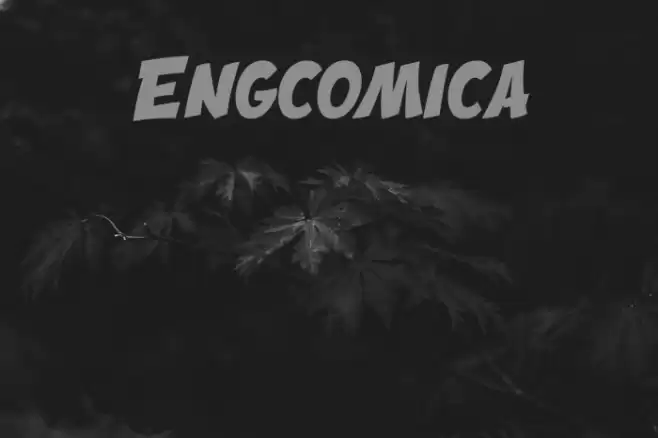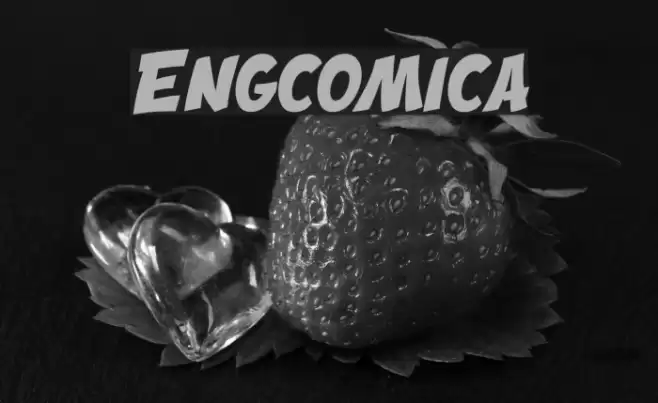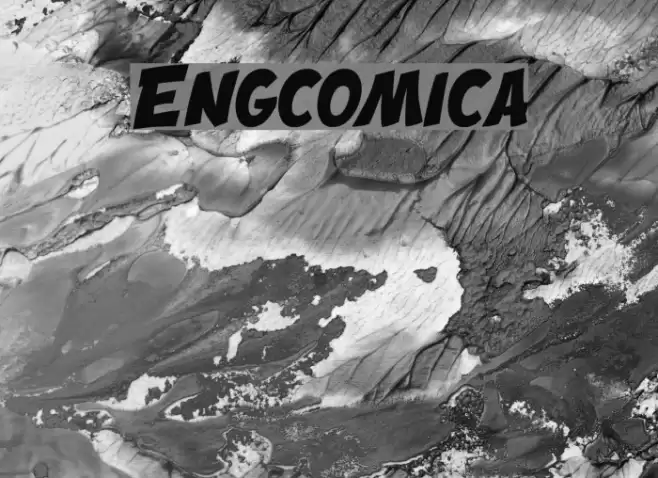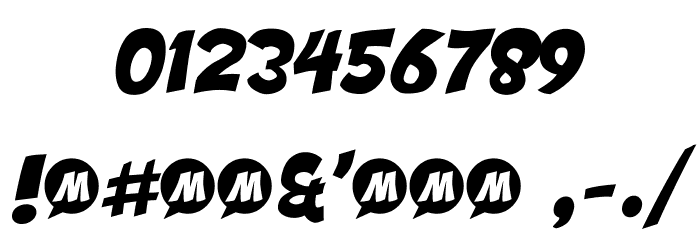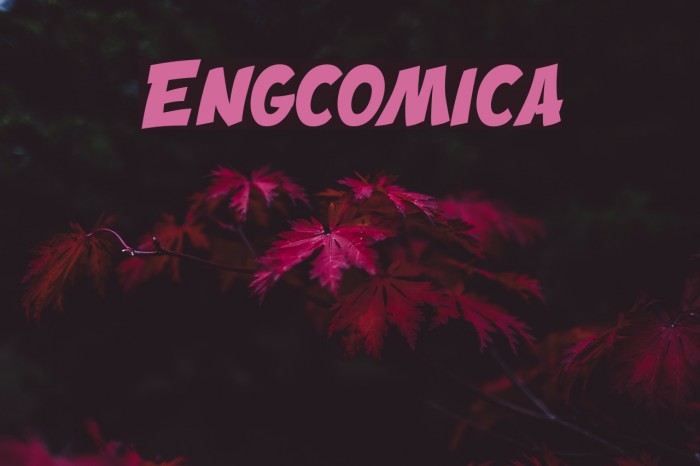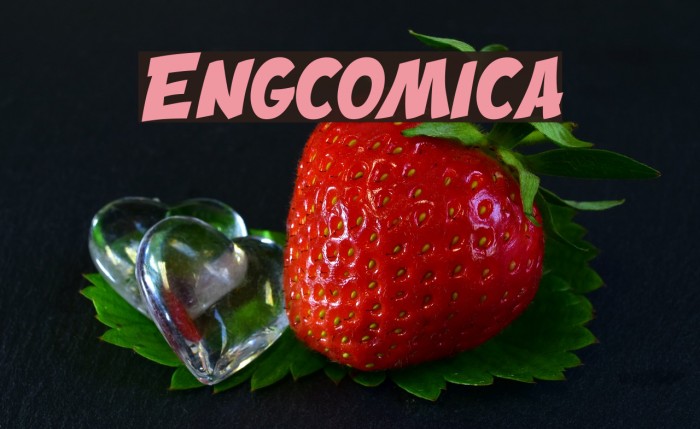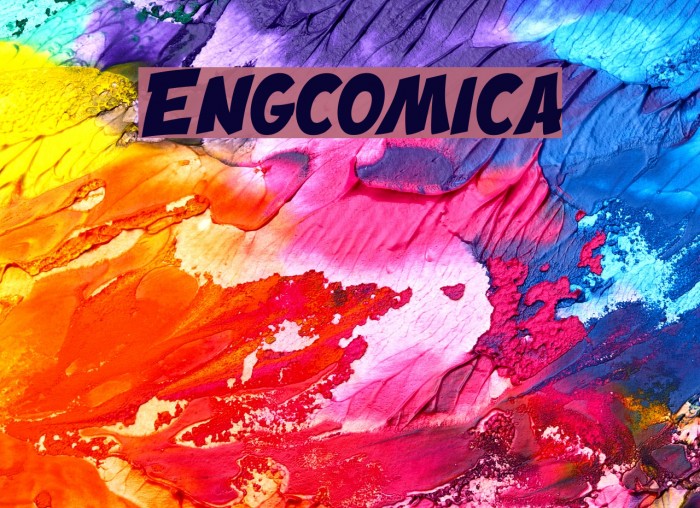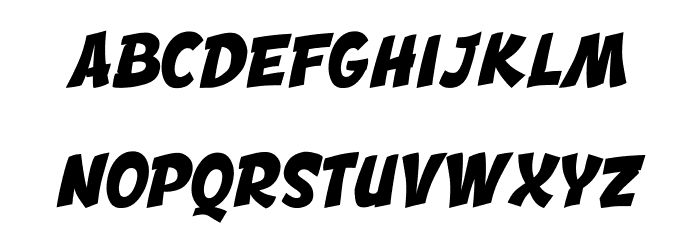
Engcomica
This font features a bold and dynamic style with a playful, comic-inspired appearance. The letters are slightly slanted, giving a sense of motion and energy. The strokes are thick and consistent, creating a strong visual impact. The characters have a whimsical, cartoonish quality, making them ideal for informal and fun designs. The numbers and special characters maintain the same lively aesthetic, ensuring a cohesive look across all text elements. The font's overall design is eye-catching and engaging, perfect for capturing attention.
A bold, comic-inspired font with a playful and dynamic style.
- Proposed Projects: Ideal for comic books, children's books, playful branding, and posters.
- Overall Style: Playful, Comic
- Use Case: Headlines, Logos, Posters